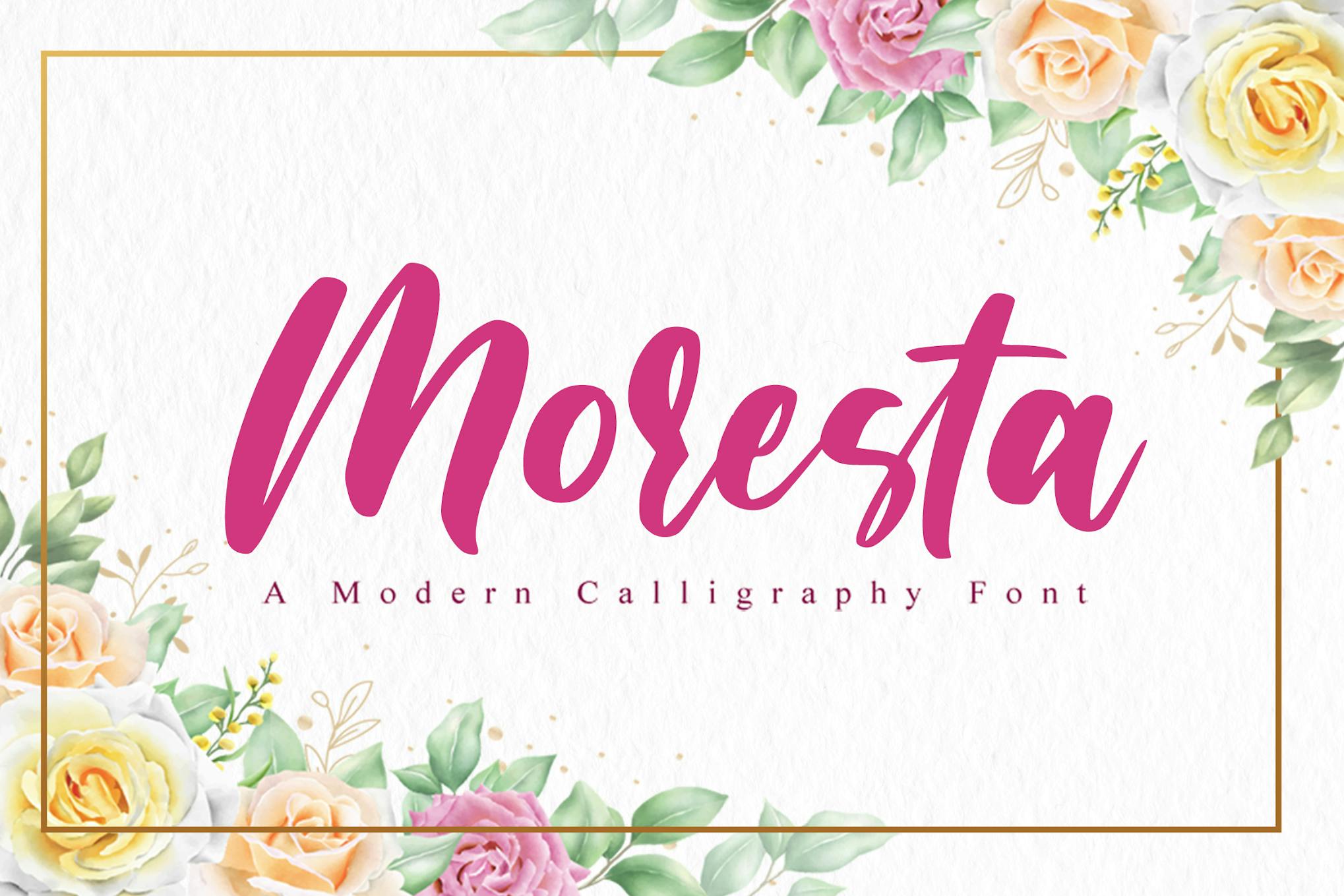
Moresta - Wedding Font
The Moresta - Wedding Font excels in sophisticated design applications including elegant wedding invitations, refined bridal branding, distinguished ceremony logos, sophisticated product packaging, elegant business cards, refined portfolios, distinguished greeting cards, sophisticated social media graphics, elegant event signage, and refined marketing materials. Its sophisticated script style makes it perfect for projects requiring distinguished elegance that communicates refinement and establishes elegant brand positioning with audiences seeking sophisticated wedding experiences and distinguished sophistication.
What makes the Moresta - Wedding Font genuinely exciting is its exceptional ability to capture the sophisticated elegance and distinguished beauty of refined weddings through elegantly crafted letterforms. The font features flowing, sophisticated strokes with distinguished flourishes and elegant proportions that create a distinctly refined appearance. Each character displays remarkable attention to sophisticated detail with elegant curves, distinguished connections, and refined spacing that give text a beautifully sophisticated, hand-lettered quality. The font's distinguished character and elegant rhythm create an atmosphere of refined sophistication while maintaining elegant distinction and wedding authenticity.
The Moresta - Wedding Font family typically includes regular weight with extensive character coverage, featuring uppercase and lowercase letters, numerals, punctuation marks, and international characters. The typeface often incorporates stylistic alternates, contextual ligatures, and sophisticated swashes that enhance its signature elegance. These additional elements provide designers with creative flexibility to customize text appearance and achieve more natural-looking distinguished handwriting that reflects the font's sophisticated and elegant character.
This sophisticated signature font distinguishes itself through its remarkable balance of elegant charm and refined presentation. Unlike basic or unrefined fonts that lack sophisticated appeal, Moresta - Wedding Font embraces the power of distinguished design to create elegant connections with sophisticated wedding audiences. The font's refined character makes it essential for elegant wedding planners, sophisticated brands, and distinguished celebration businesses where creating refined wedding experiences and sophisticated memories is fundamental to success in elegant wedding markets.